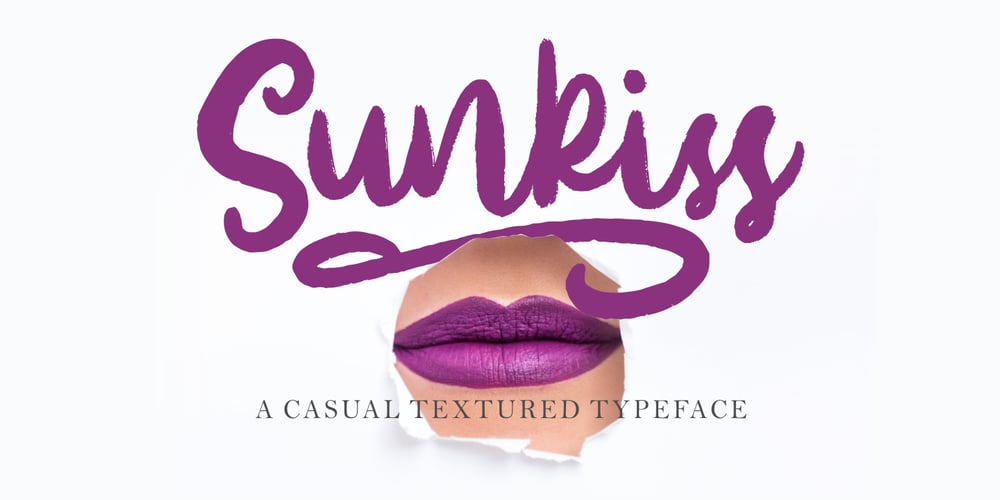
Sunkiss Font Family was designed by Risman Ginarwan and published by Garisman Studio. Sunkiss contains 1 styles and family package options. Sunkiss font starts from a brush stroke with a script style and also follows the times. Sunkiss is very suitable for use in various media such as: packaging, logo, label, poster, shirt design, quotes of wisdom, hand-lettering, typography and many other media.